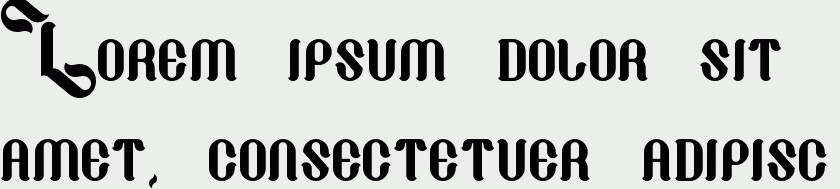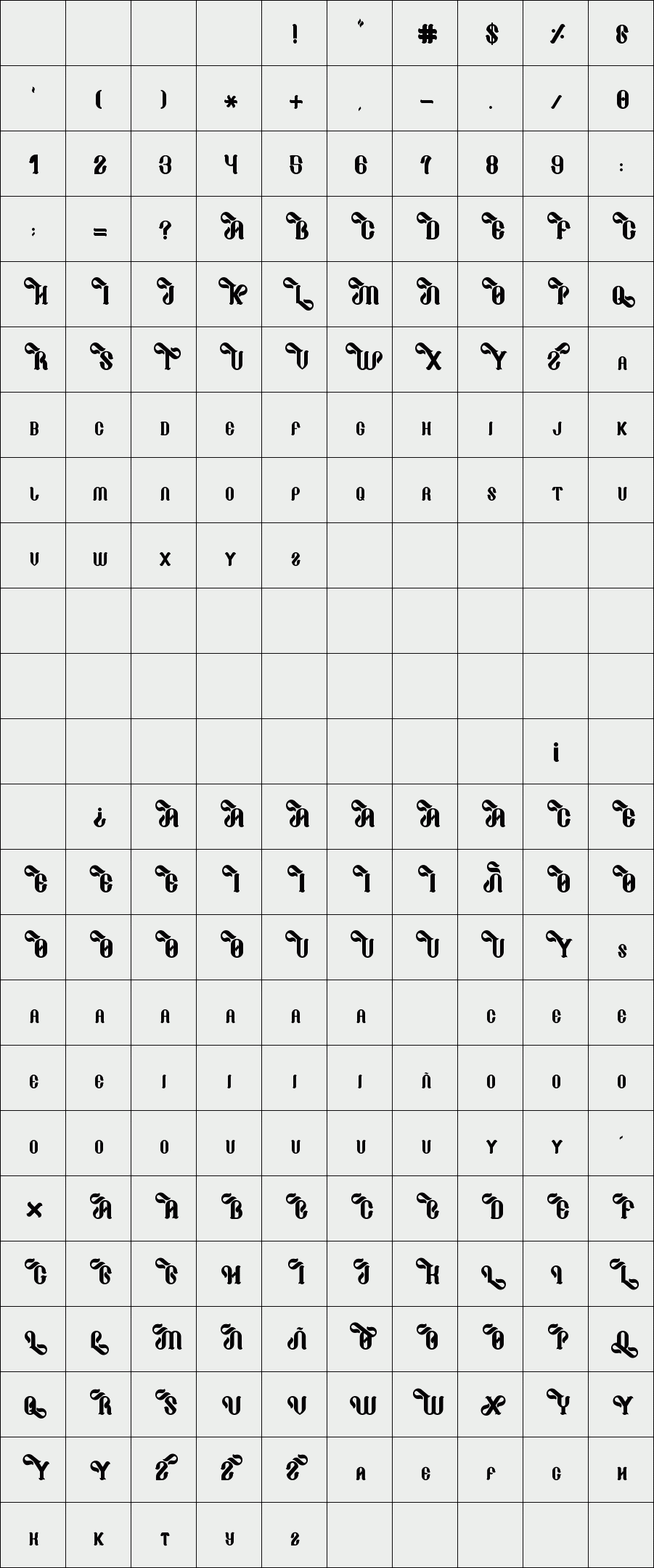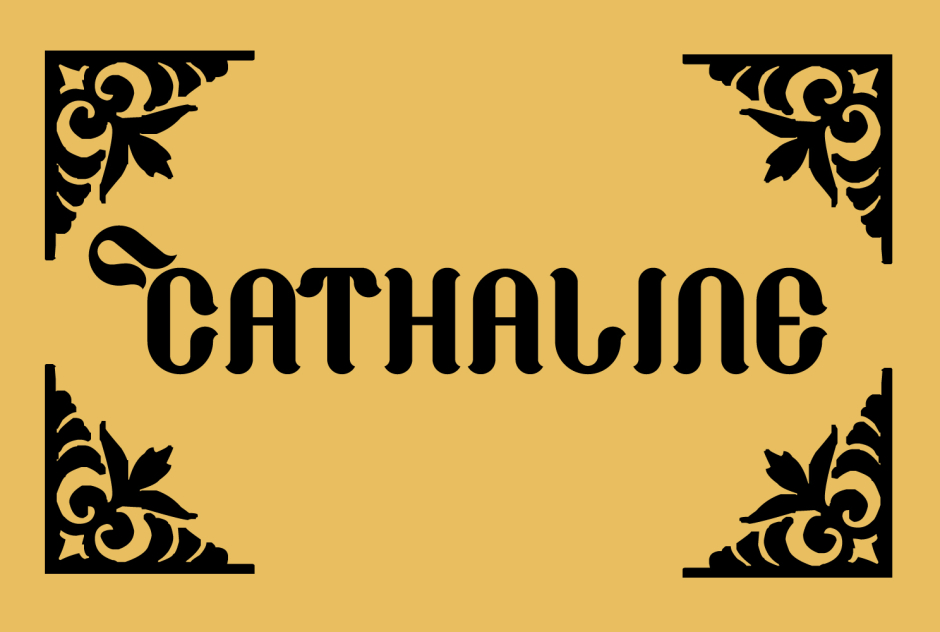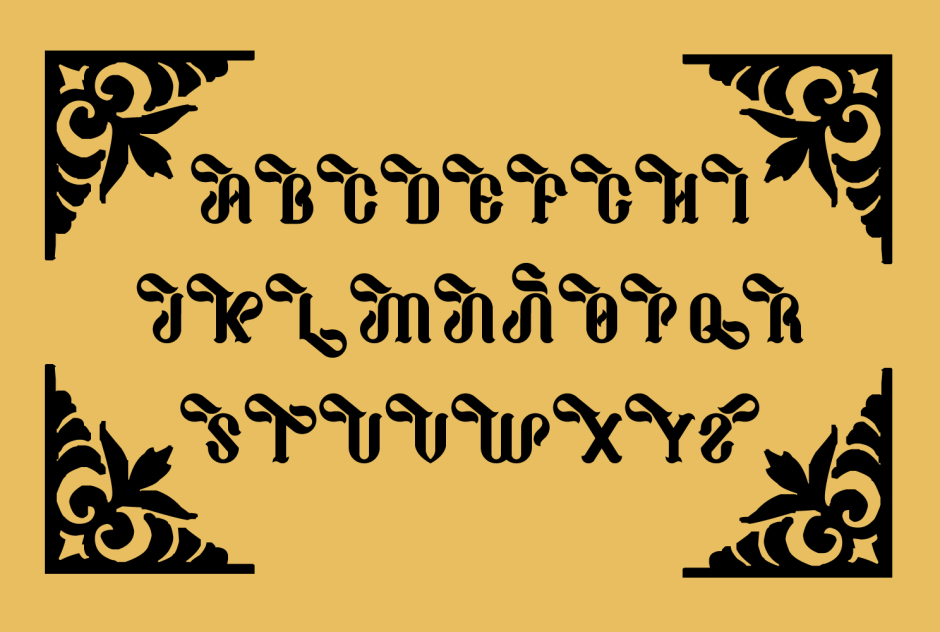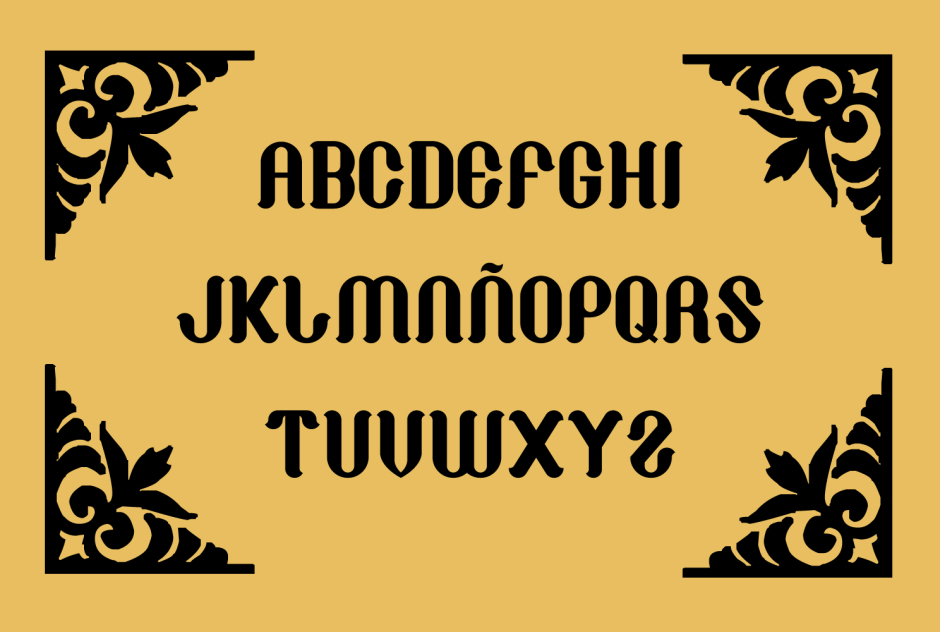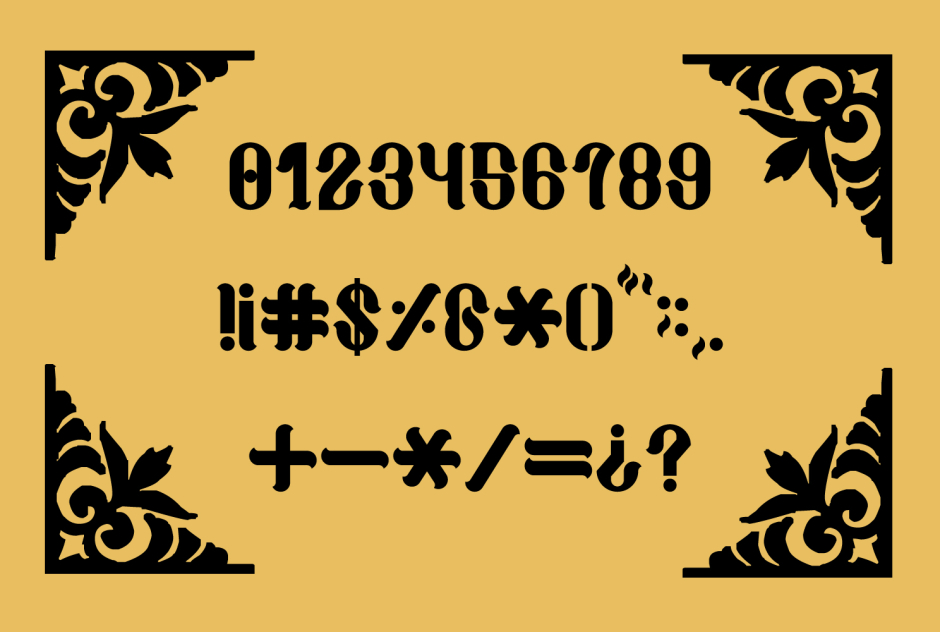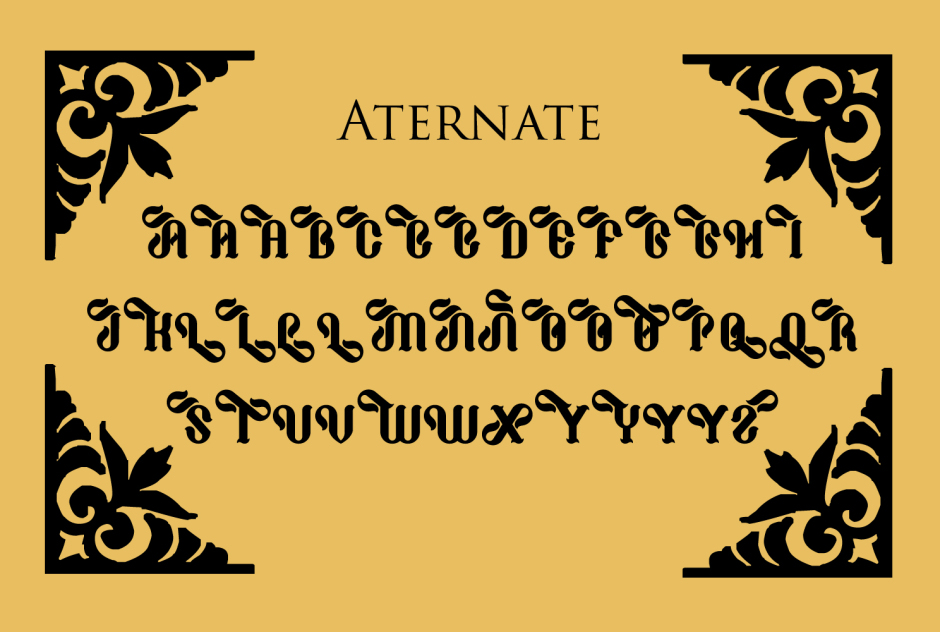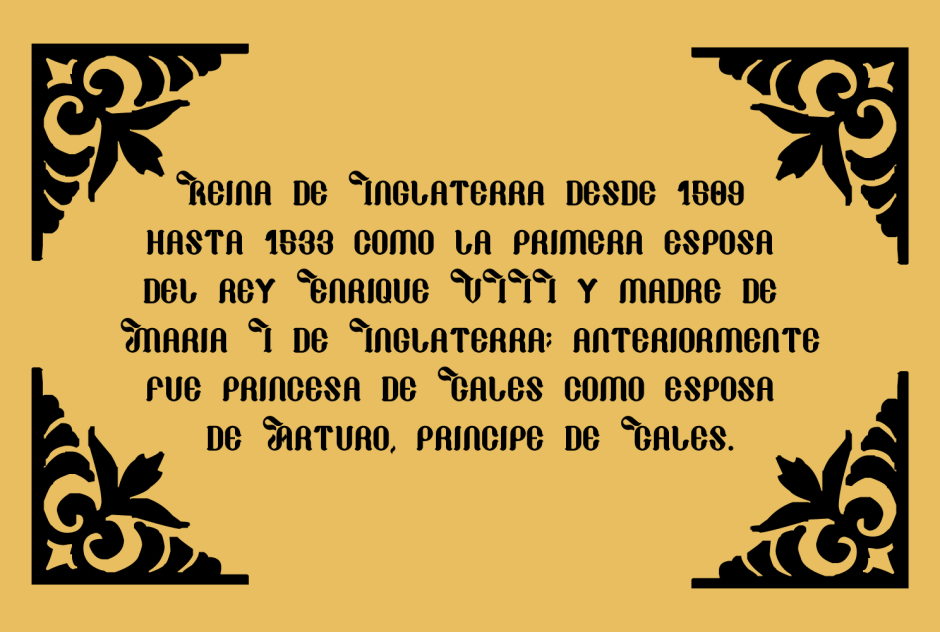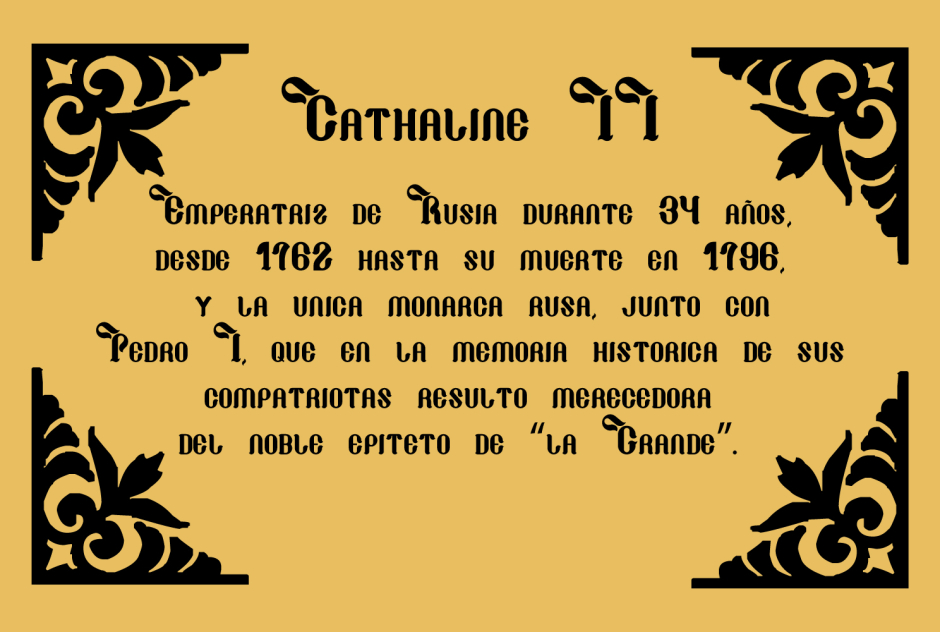
Cathaline
/ Cathaline II
Medieval typography with very elegant forms
Letter Set (A-Z)
Letter set (a-z)
Set of numbers (0-9)
Symbols set.
Letter Set (A-Z)
Letter set (a-z)
Set of numbers (0-9)
Symbols set.
Unlike the previous source, in this the lower case letters are smaller.